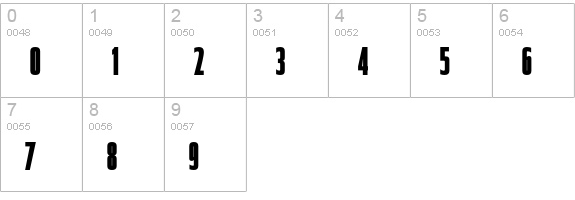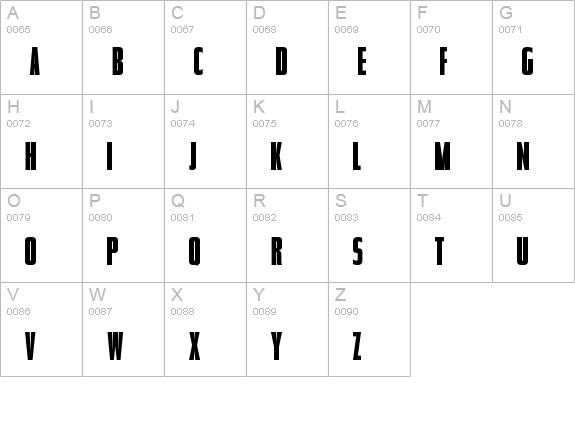
Tasse-BlackCompressed font is a stylish and versatile typeface that embodies elegance and sophistication. With its sleek and condensed design, this font is perfect for adding a touch of modernity to any project. Featuring bold and sharp letterforms, Tasse-BlackCompressed exudes confidence and strength, making it ideal for headlines, logos, and branding materials. Its compact structure allows for efficient use of space, making it a great choice for designs that require a clean and polished look. What sets Tasse-BlackCompressed font apart is its versatility and adaptability. It can seamlessly fit into a wide range of design styles, from minimalist and contemporary to bold and expressive. And the best part? Tasse-BlackCompressed font is available for free download at FontsMarket.com. That's right, you can easily access this incredible font without any cost. Whether you're a professional designer or a hobbyist, this font will be a valuable addition to your collection. So why wait? Elevate your designs with Tasse-BlackCompressed font today. Download it for free at FontsMarket.com and let your creativity soar.